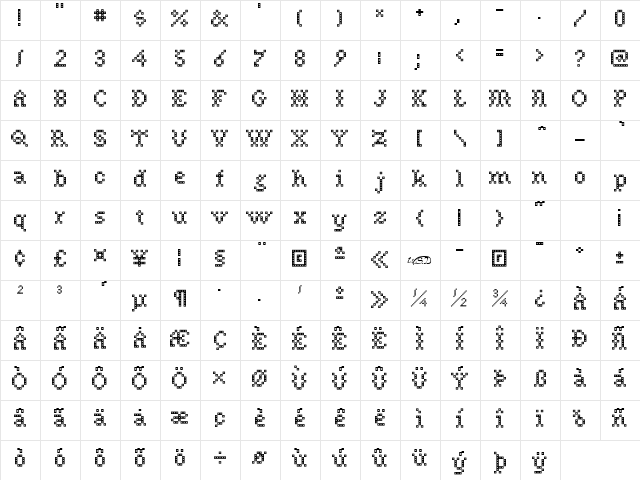
Needlepoint Regular Font Preview
Needlepoint Regular
Needlepoint Regular Font Details
Design Context for Needlepoint Typeface
Needlepoint is a composed and adaptable typeface that performs quietly and consistently across a wide range of design contexts.